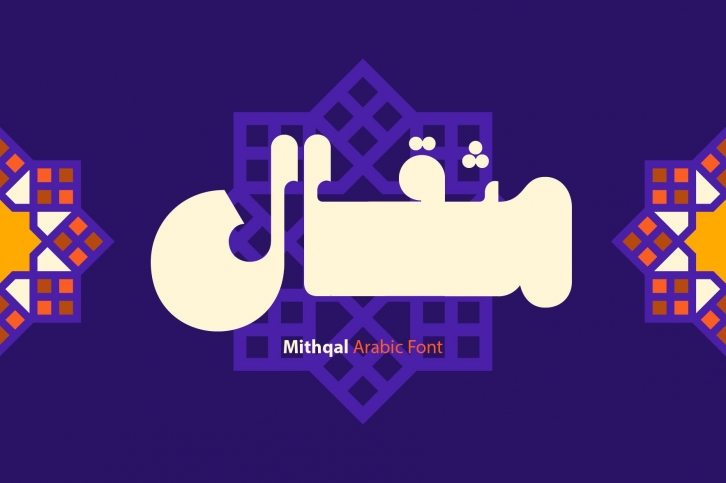
Mithqal is a gorgeous font that was realeased on October 17, 2021. The font can be used in many style contexts and design environments. Perfect for invitations, magazines, websites, logos, and more! It was designed by Mostafa Abasiry and the file size is 4.78 MB. Thanks for checking out this font!